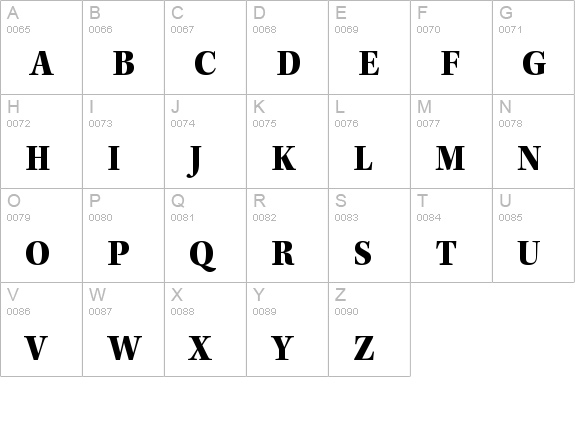
Kepler Std Black Semicondensed Font Details
Kepler Std Black Semicondensed is a maximum-weight, dramatic variant in the Kepler typeface family \xE2\x80\x94 well suited to maximum-impact headlines, posters, and packaging.
Kepler Std Black Semicondensed is a remarkable font that exudes elegance and sophistication. Its bold, condensed design adds a touch of modernity and versatility to any project, making it perfect for both digital and print media. With its clean lines and strong presence, Kepler Std Black Semicondensed demands attention and effortlessly captures the essence of contemporary design. Whether you're creating a striking logo, a sleek website, or eye-catching headlines, this font will make a lasting impression. One of the most appealing aspects of Kepler Std Black Semicondensed is that it is freely available to download at FontsMarket.com. This means that you can unleash your creativity without any restrictions, allowing you to explore and experiment with this stunning font at no cost. Designed with utmost precision and attention to detail, Kepler Std Black Semicondensed offers a wide range of glyphs and symbols, ensuring that you have everything you need to bring your ideas to life. Its seamless legibility ensures that your message is conveyed with clarity and impact, while its bold weight provides a sense of authority and power. Whether you're a professional designer or a creative enthusiast, Kepler Std Black Semicondensed is a must-have font in your arsenal. Its flexibility, elegance, and availability make it the ideal choice for a variety of design projects. So why wait? Head over to FontsMarket.com today and download Kepler Std Black Semicondensed for free, and let your creativity soar to new heights.